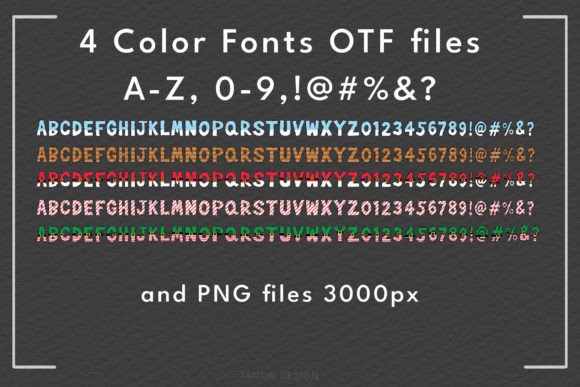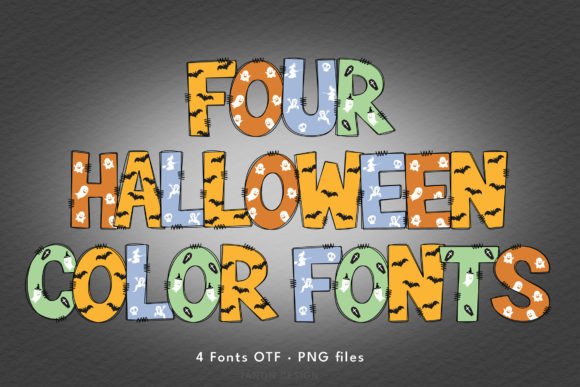
Halloween Font: The Ultimate Design Element for Spooky Season
Are you looking for a font that will add a spooky touch to your Halloween-themed designs? Look no further! Our Halloween Font is the perfect addition to any design project, from t-shirt designs to digital art, crafts, and more. In this article, we’ll explore the features and benefits of our Halloween Font and provide you with tips on how to use it in your designs.
What is Halloween Font?
Our Halloween Font is a unique and eye-catching font designed specifically for the spooky season. It’s perfect for creating designs that will make your audience scream with delight. The font comes in two versions: black and color. The black version is compatible with Cricut Design Space and other cutting machines, making it ideal for crafters and makers. The color version, on the other hand, is compatible with design programs like PhotoShop, Illustrator, Silhouette, and Inkscape.
Key Features of Halloween Font
- Versatility: Our Halloween Font is perfect for a wide range of design projects, including t-shirt designs, mug designs, digital designs, crafts, cards, and more.
- High-Quality Design: Our Halloween Font is designed with high-quality graphics, ensuring that your designs look professional and polished.
How to Use Halloween Font in Your Designs
Using our Halloween Font in your designs is easy. Here are a few tips to get you started:
- T-Shirt Designs: Use our Halloween Font to create spooky t-shirt designs that will make your audience scream with delight.
- Mug Designs: Add a touch of Halloween spirit to your mug designs with our font.
- Digital Designs: Use our font to create spooky digital art, including posters, flyers, and more.
- Crafts: Our Halloween Font is perfect for crafters, and can be used to create spooky cards, decorations, and more.
Our Halloween Font is the perfect addition to any design project this spooky season. With its versatility, compatibility, and ease of use, it’s the ideal font for designers and crafters alike. Whether you’re creating t-shirt designs, mug designs, digital art, or crafts, our Halloween Font is sure to make your designs stand out. So why wait? Download our Halloween Font today and start creating spooky designs that will leave your audience screaming with delight!